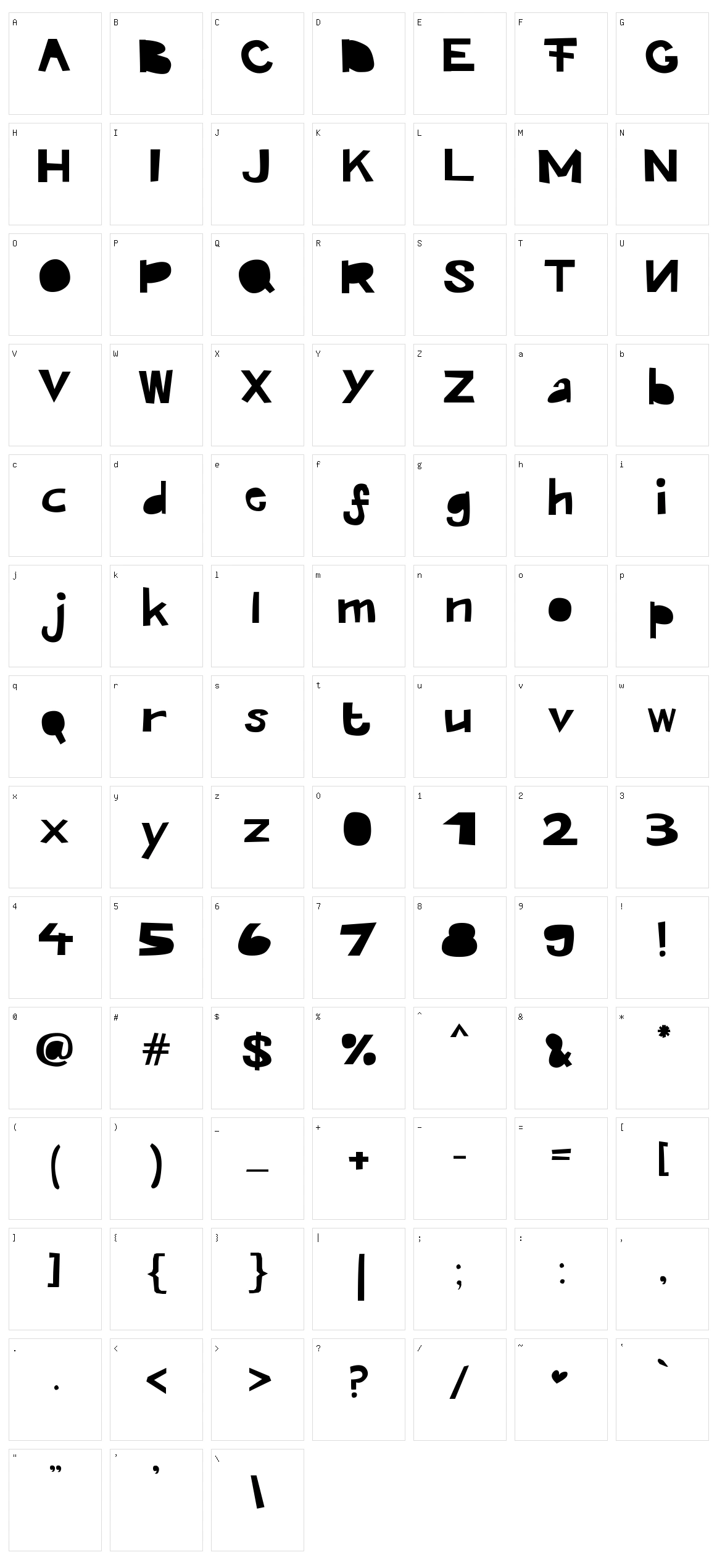
The free font Kroeskop is carefully designed by Jaap Nauta, showcasing a thoughtful balance of creativity and usability and falls under the Cartoon font style. When you download the ZIP file, it contains only 18.21 KB of font files, making it lightweight and quick to download. Please review the license details below to understand permitted usage and distribution rights. If license information is not available, we recommend using this font for personal projects only or contacting the author directly for commercial usage permissions.